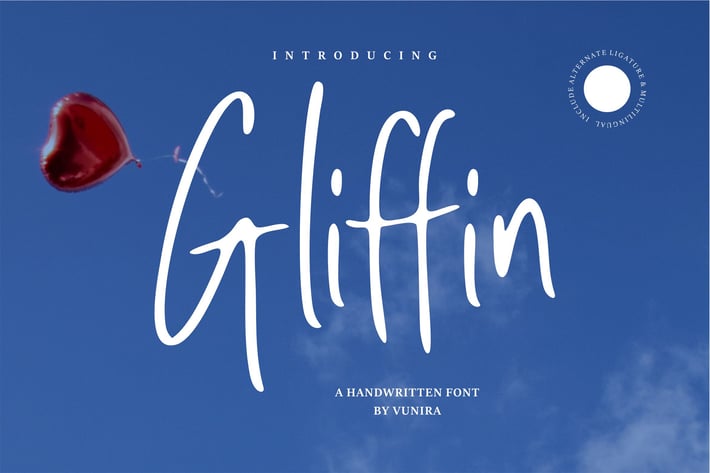
Gliffin | A Handwritten Font
Gliffin | A Handwritten Font with a calligraphy style, So beautiful on invitation like greeting cards, branding materials, business cards, quotes, posters, and more!